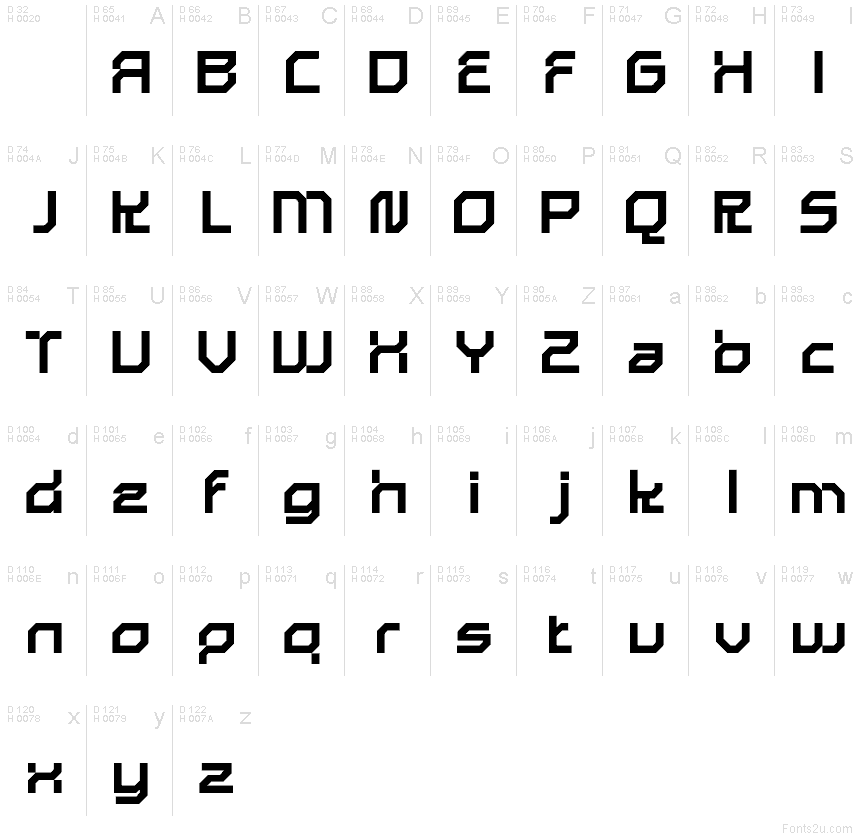
CS Whiplash Regular Demo
CS Whiplash font crafted by Craft Supply Co is a modern typeface with clean, futuristic designs. This font is expanded for a structured appearance, its angular characters is geometric and possess technical aesthetic. Each character has its own presence and the entire font as a whole has an element of futuristic property.